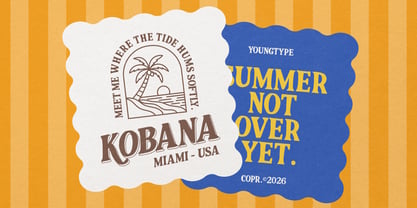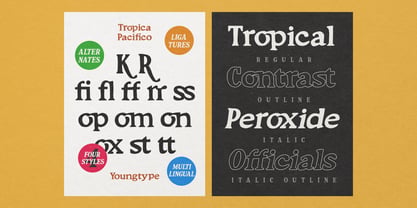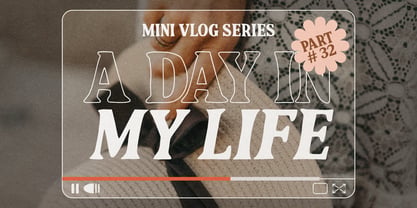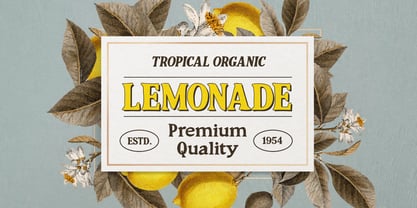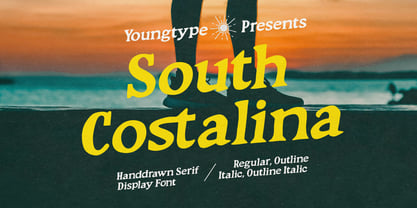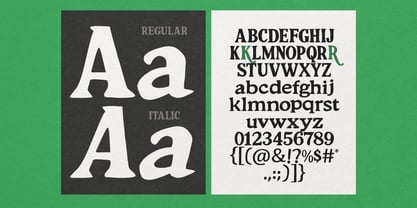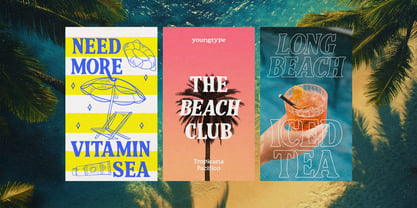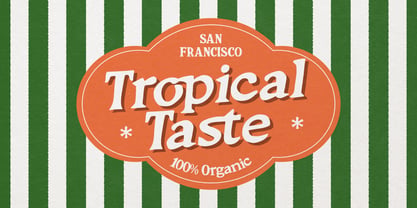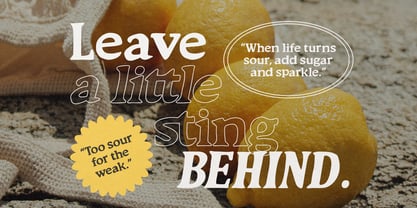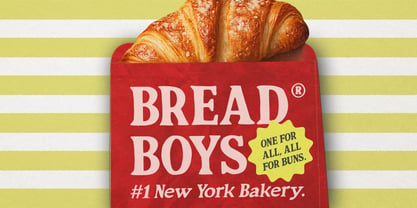
South Costalina
by Youngtype
The South Costalina Font Family was designed by Naufal Paramata and published by Youngtype. South Costalina contains 4 styles and family package options. More about this family
South Costalina is a bold, hand-drawn serif display font that exudes a strong retro and nostalgic vibe. It captures the essence of 1970s and 80s typography with a relaxed, coastal aesthetic. The letterforms are organic and soft, avoiding sharp geometric lines in favor of a "human," hand-crafted feel. Contains full set : Uppercase Lowercase Ligatures Alternates Punctuation number multilingual support. Thank you